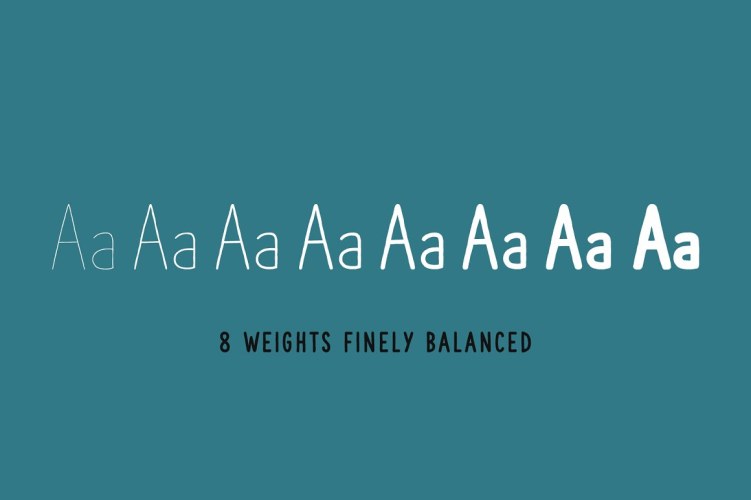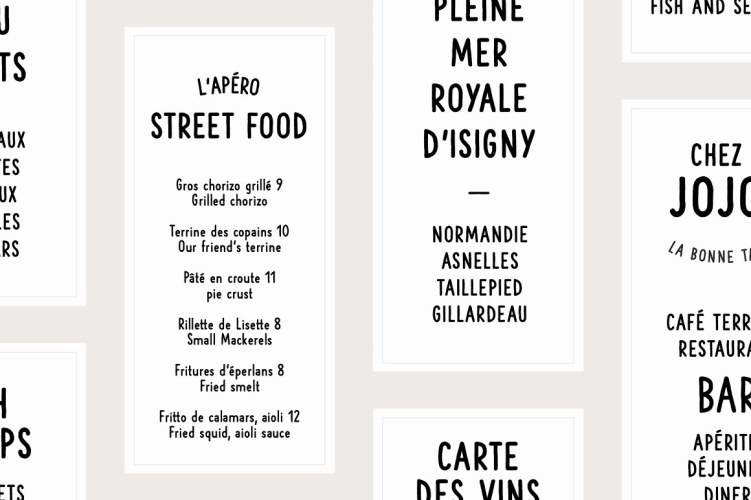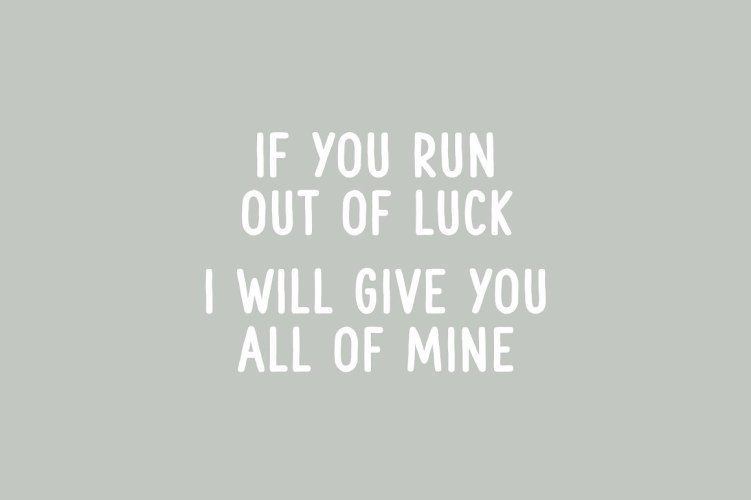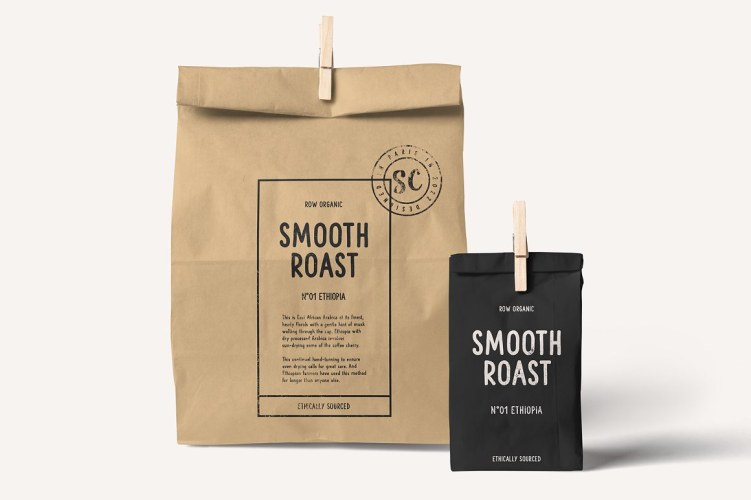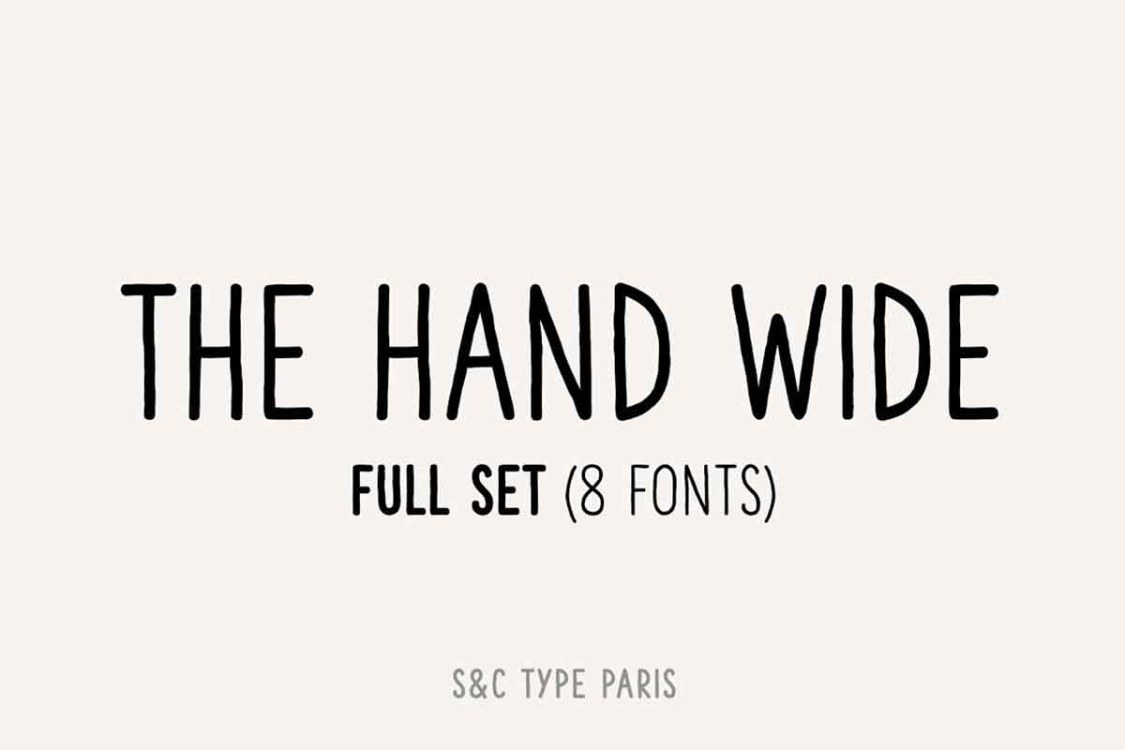
The Hand Wide Font
The Hand Wide is a handwritten font designed by Fanny Coulez and Julien Saurin in Paris. We wanted to create the most generic, readable and finely balanced handwritten f…
The Hand Wide is a handwritten font designed by Fanny Coulez and Julien Saurin in Paris. We wanted to create the most generic, readable and finely balanced handwritten font, to work well in every kind of design. It’s an extended version of our font The Hand.
Where The Hand Wide Font works best
The Hand Wide Font brings a personal, handwritten warmth to invitations, menus and place cards.
Craft brands — coffee, cosmetics, bakery — use scripts like The Hand Wide Font for signature-style logos and labels.
Pair The Hand Wide Font with a plain sans for quotes, stories and Pinterest pins that feel handmade.
What is The Hand Wide Font good for?
The Hand Wide Font is a Script And Handwritten typeface tagged Bold, Handwritten, Readable, Script. It works well for headlines, logos, posters, social media graphics and branding projects that need a distinctive script and handwritten look.